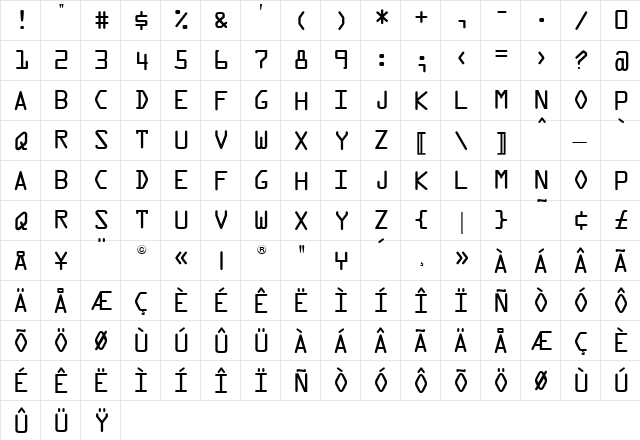
OPTIOpus Regular
Design Context for OPTIOpus Typeface
OPTIOpus is a composed and adaptable typeface that performs quietly and consistently across a wide range of design contexts.